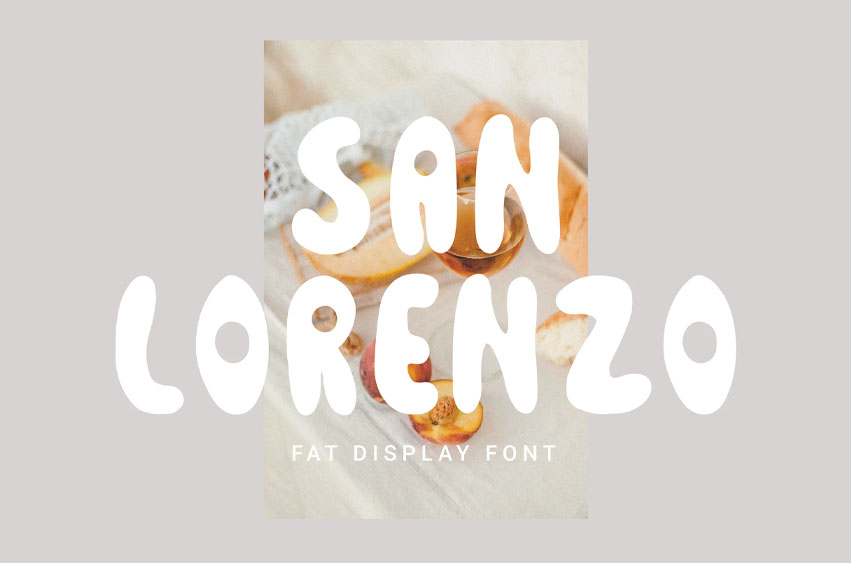
San Lorenzo Font
San Lorenzo Font is a hand-drawn, groovy display font.
Suitable for poster design, merchandise, stickers, and branding, among other applications.